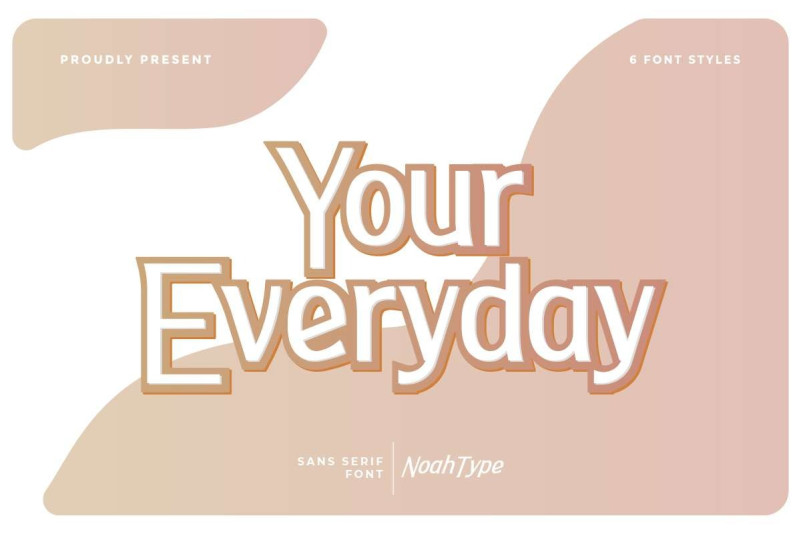
Your Everyday Font
Your Everyday Display Font is a stylish sans serif display font. This stunning font is made into six different styles, there are Regular, Italic, Thin, Thin Italic, Bold, and Bold Italic. It would be perfect choice for many industries, such as accessories, advertisement, café, fashion, florist, handicrafts, perfume, printing, publishing, real estate, restaurant, and more!
Your Everyday Font include full set of Uppercase and Lowercase Basic Characters, Numerals and Punctuation. As the name suggests, this font can be used in any design and won’t be boring every day, such as business card, label, magazine catalog, poster, price tag, product packaging, screen printing, signage, stationery, title, etc.